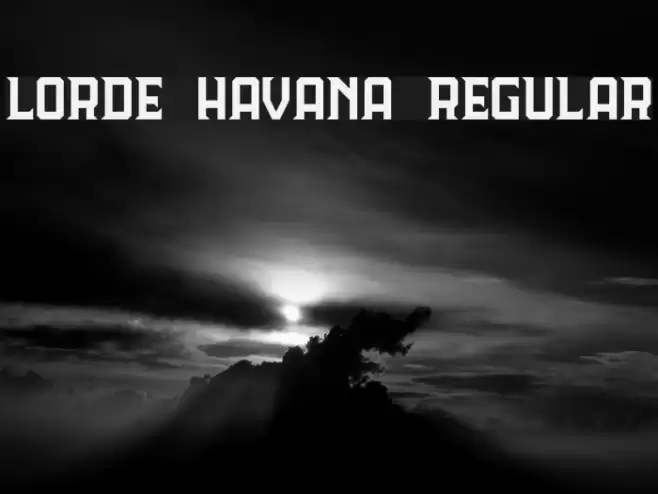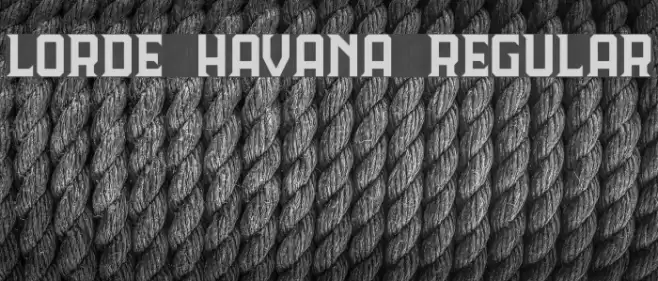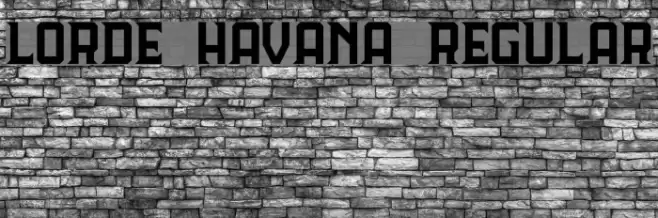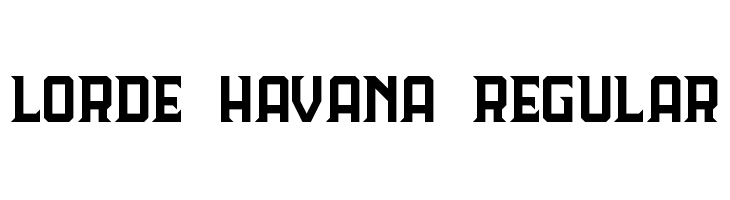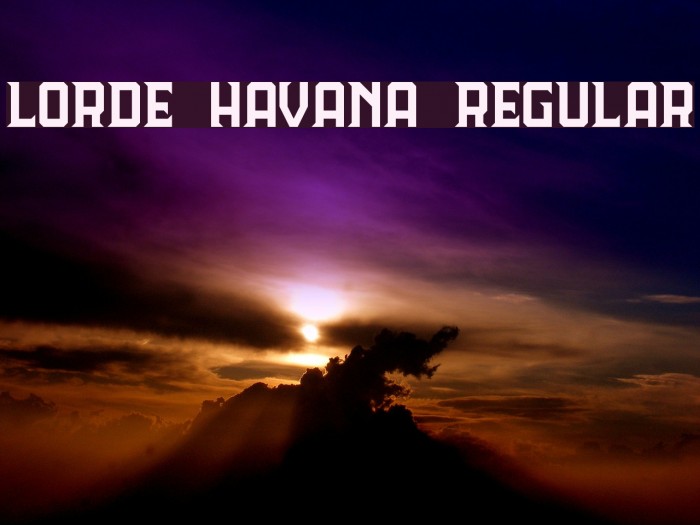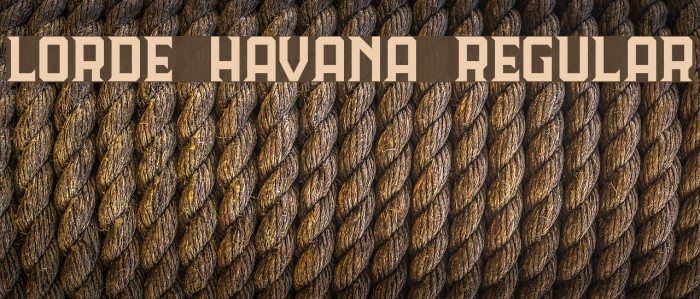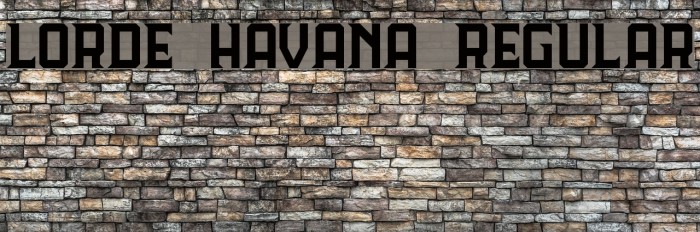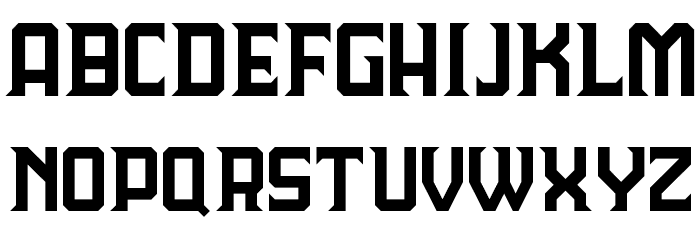
Lorde Havana Regular Font
Lorde Havana Regular Description
This font features a bold, geometric design with strong, angular lines and a distinct, modern aesthetic. The uppercase letters are characterized by their blocky, robust forms, which convey a sense of strength and stability. The font's unique style is further emphasized by its sharp edges and clean cuts, making it stand out in any design. The characters are evenly spaced, providing a balanced and harmonious appearance. This typeface is ideal for projects that require a bold statement, such as branding, headlines, or posters. Its modern and decorative style makes it suitable for creative and contemporary designs.
A bold, geometric font with angular lines and a modern aesthetic from Uncategorized fonts.
- Proposed Projects: Ideal for branding, headlines, posters, and creative design projects.